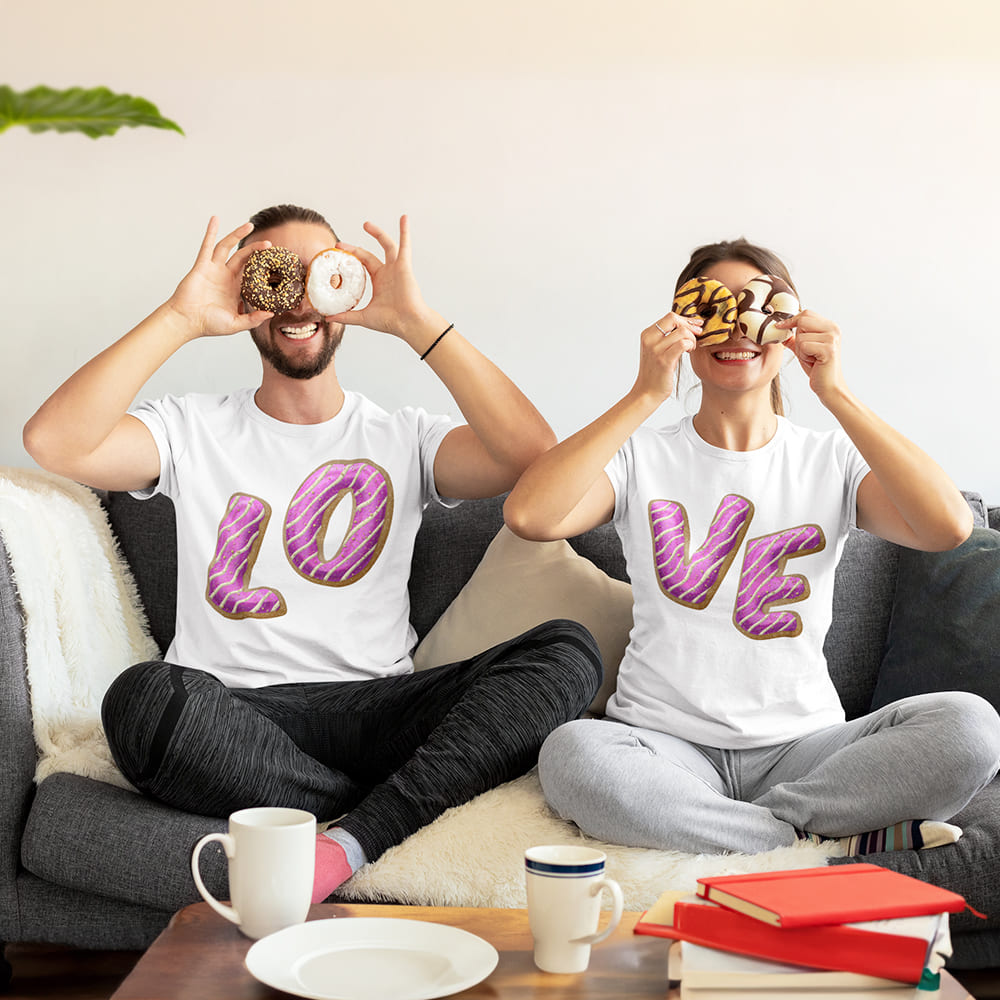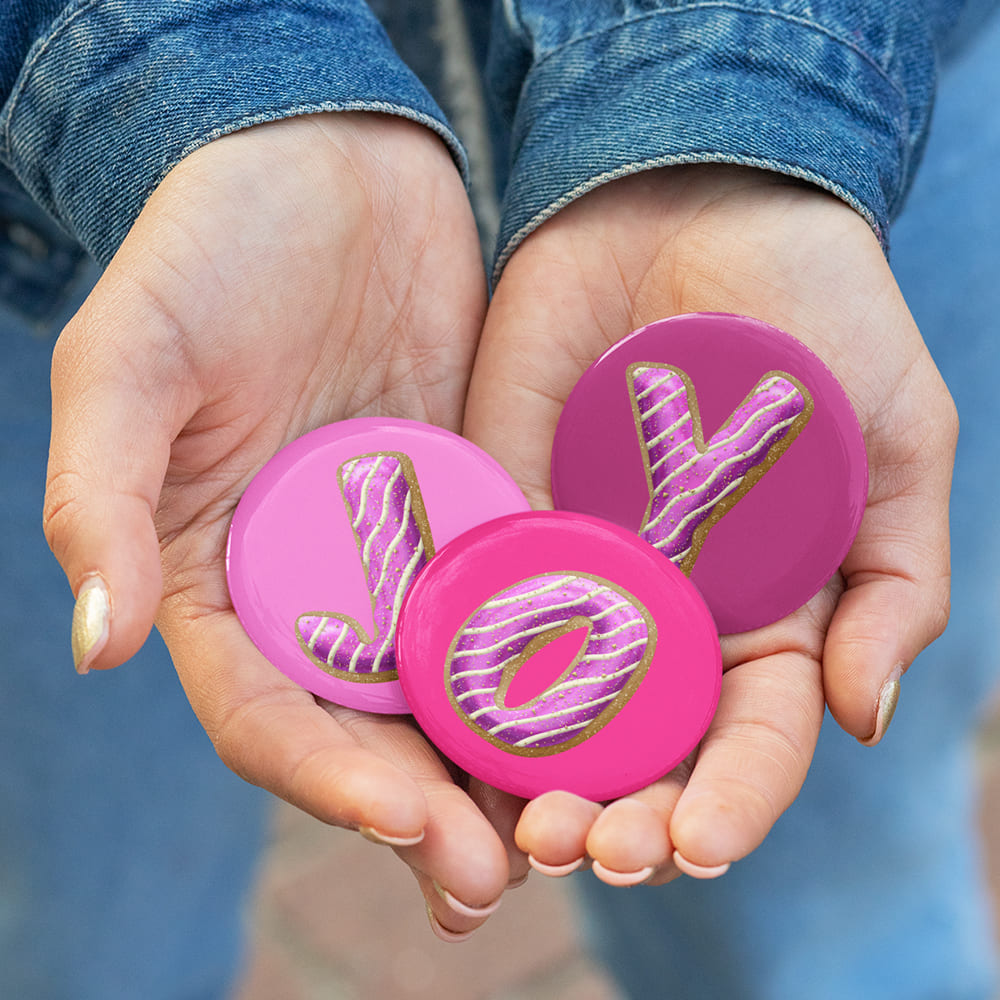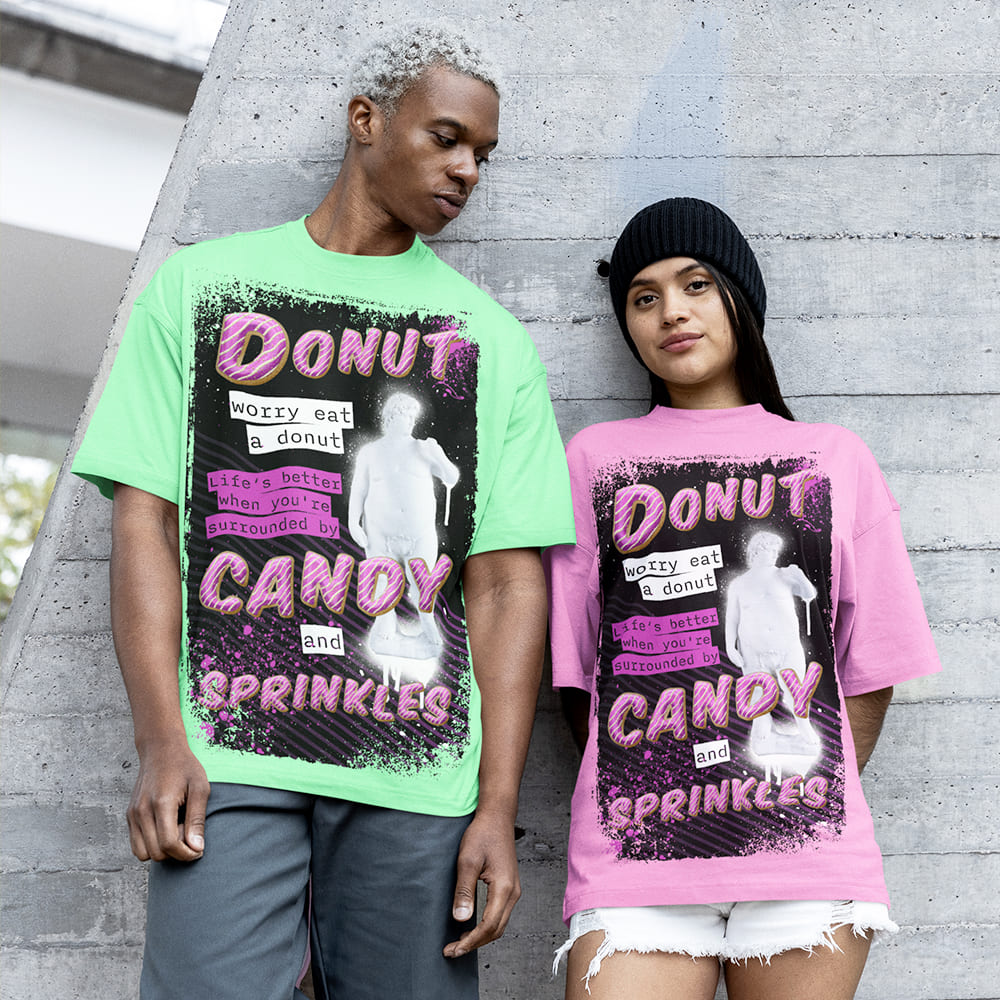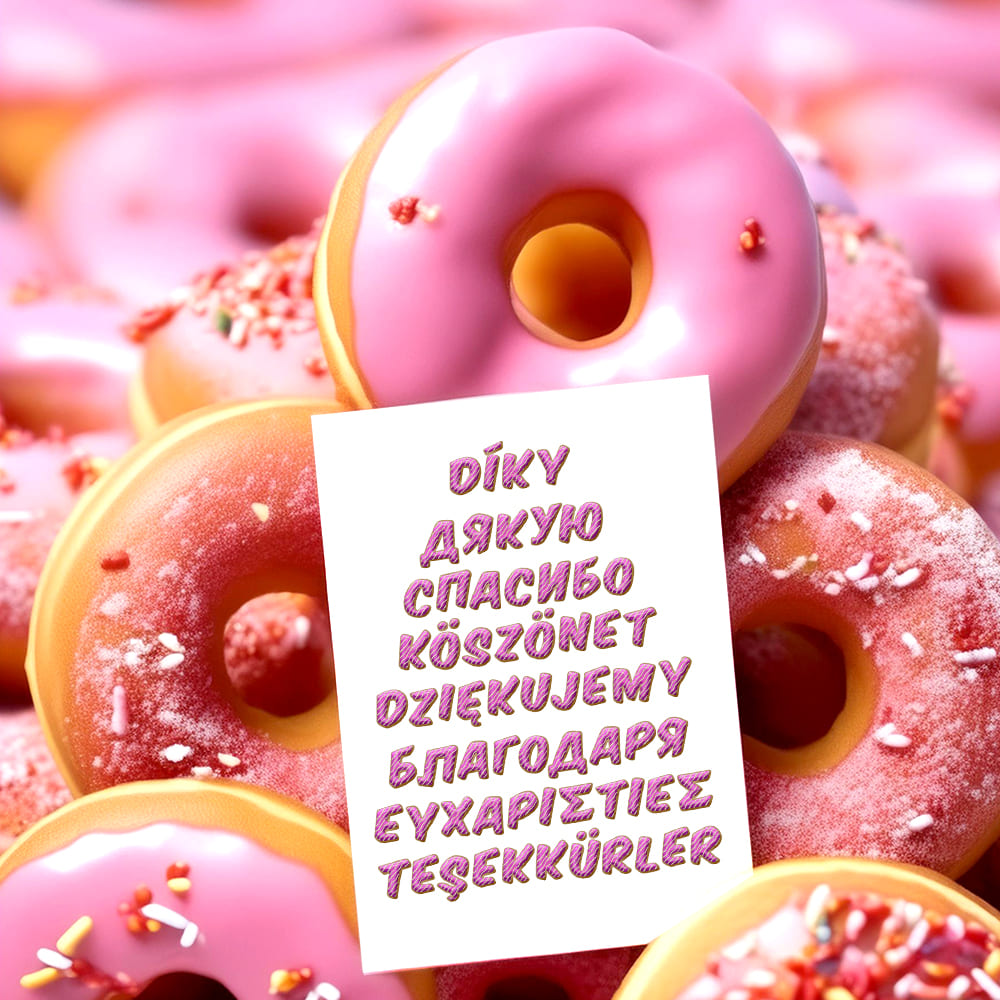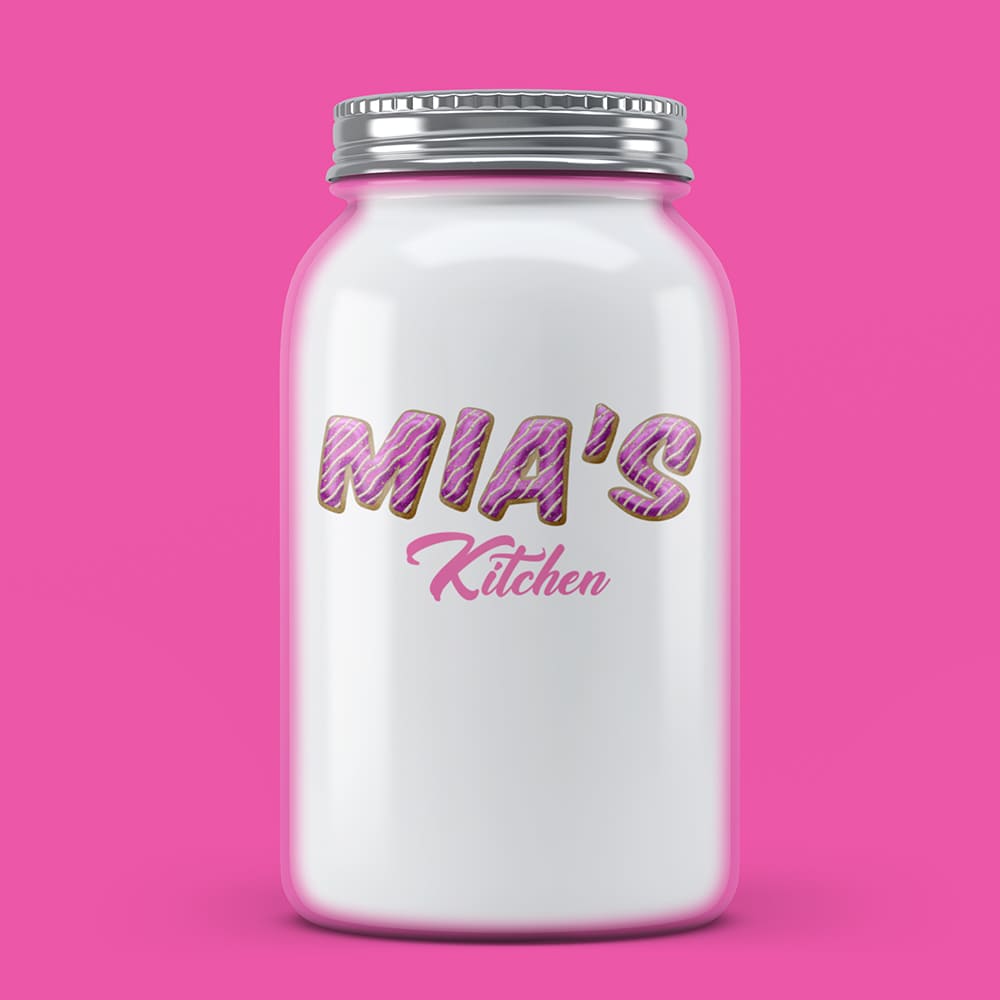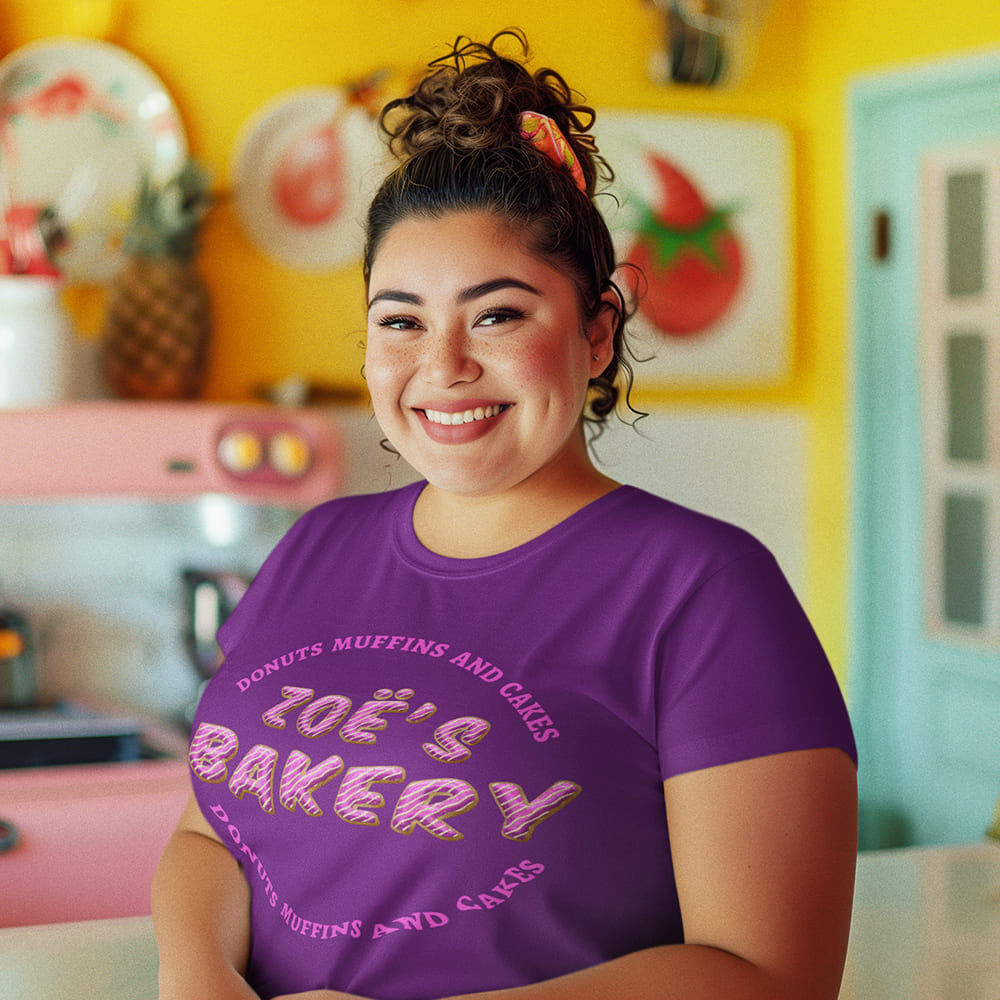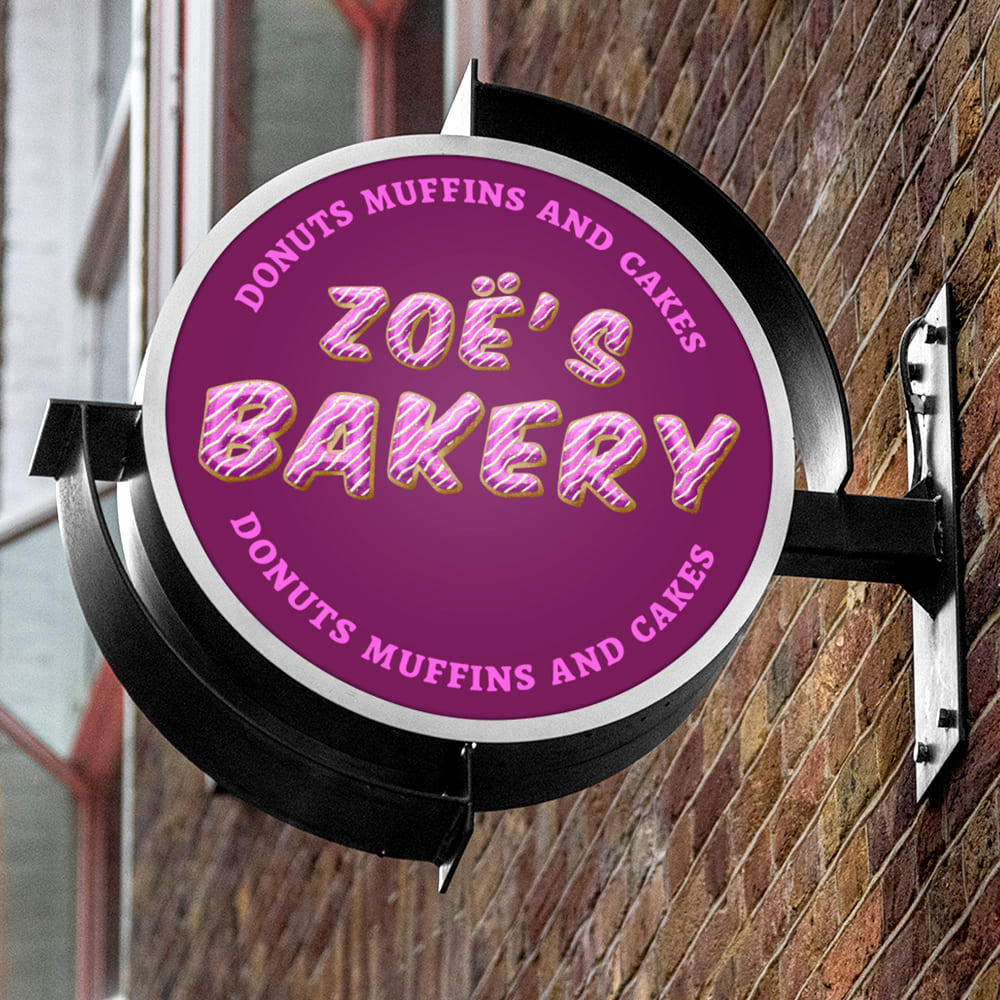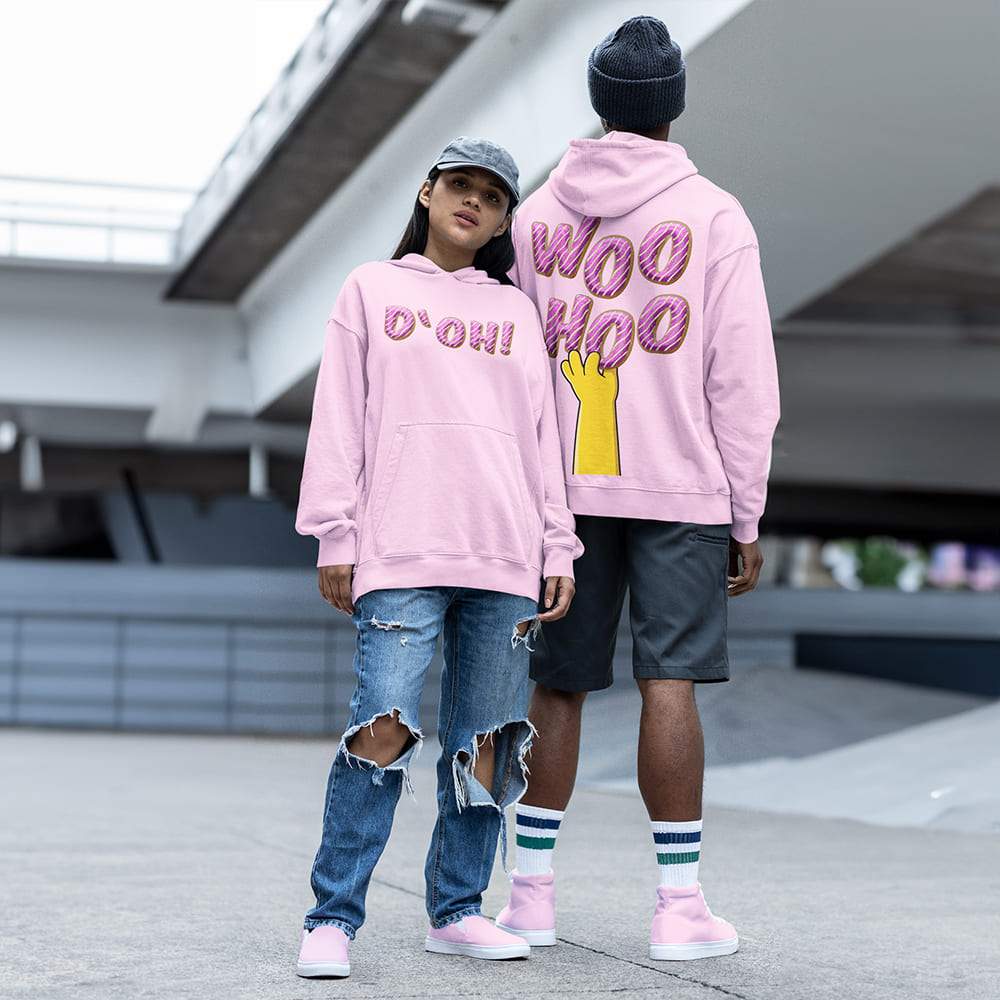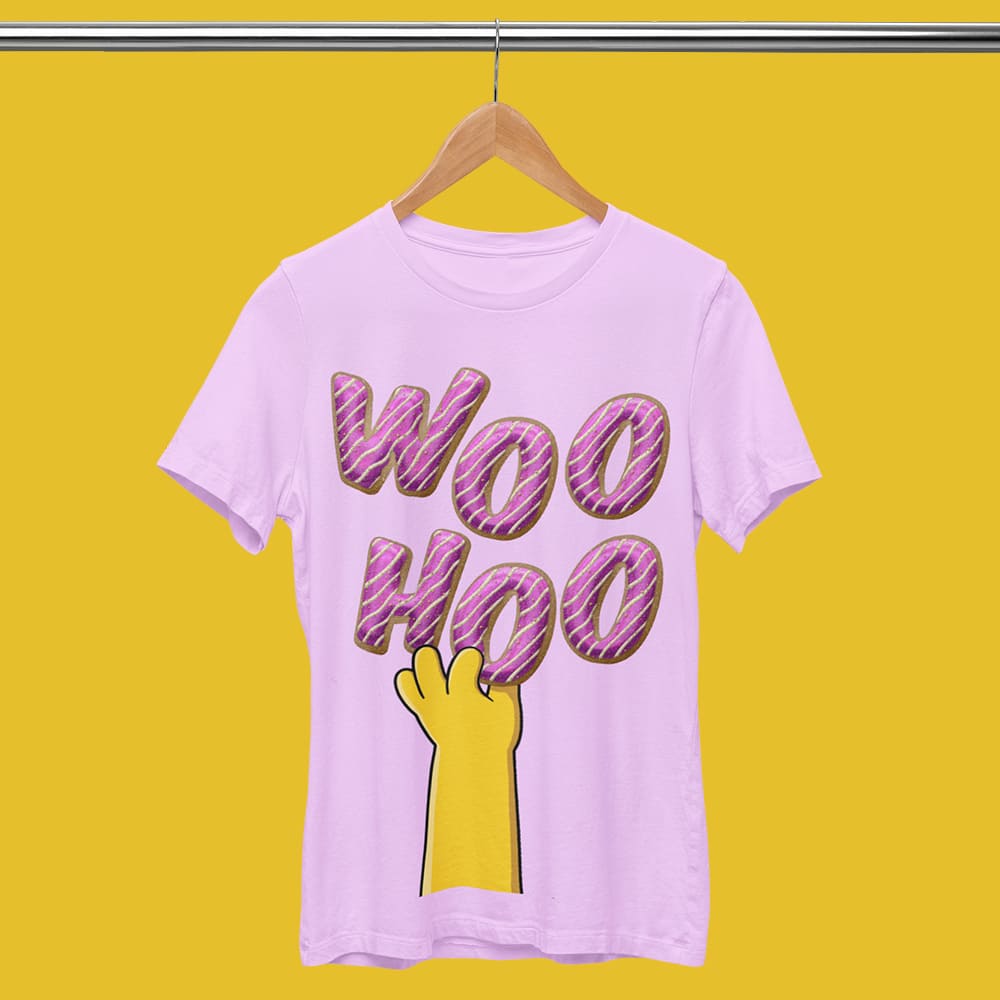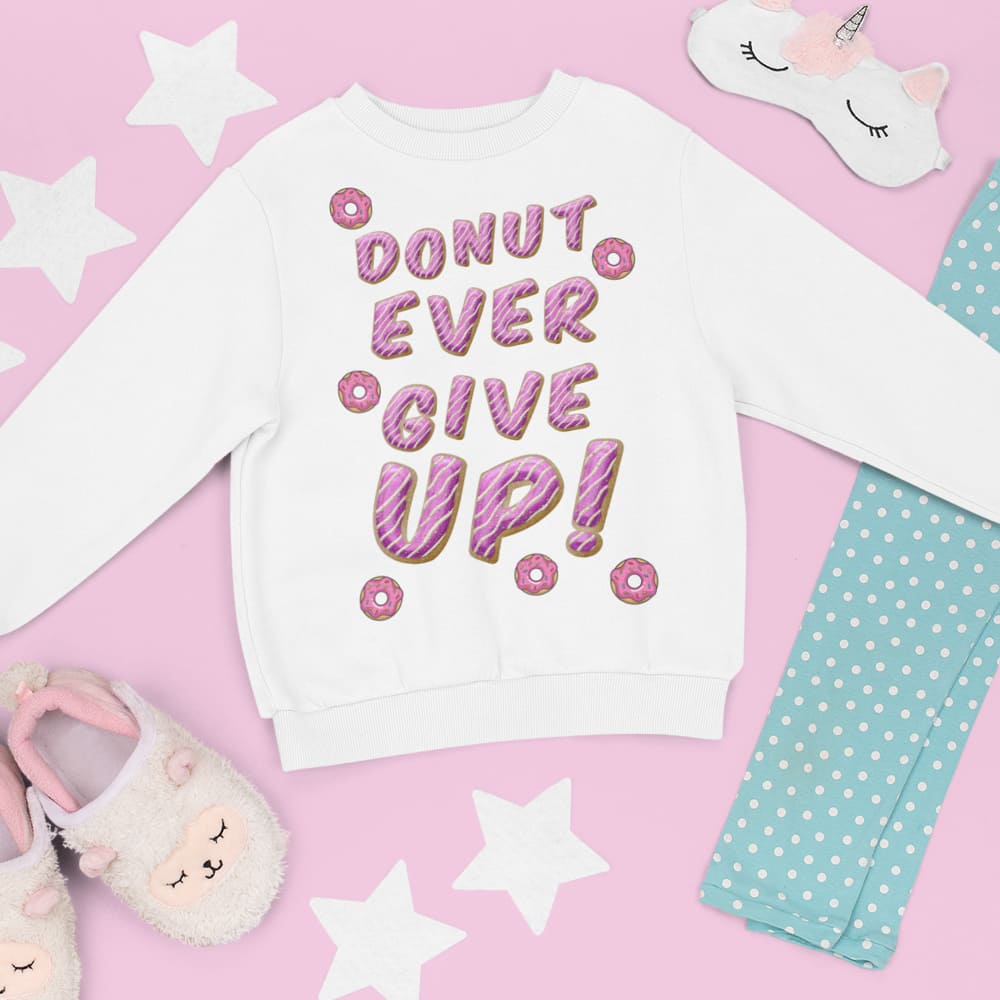
Pink Donuts Font
Sweet, Playful, Irresistible 🍩🎂🧁
Sometimes, your design just needs a delicious dose of sweetness and joy—like a freshly baked donut with pink frosting. The Pink Donuts Font brings that same playful, vibrant touch to your design, making every project instantly unforgettable.
Why Choose the Pink Donuts Font?
🔹 Playful & inviting – This font radiates happiness and lighthearted energy, perfect for designs that create a cheerful, welcoming atmosphere.
🔹 Irresistible look – With its bold, puffy letters and vivid pink color, the Pink Donuts Font grabs attention instantly. Ideal for events, bakeries, or fun, girly designs that need a bright and lively aesthetic.
🔹 Perfect for branding & promotions – Whether for social media, flyers, or posters, the Pink Donuts Font adds fun and color to any design.
🔥 EVERY FONT ROCKER FONT COMES WITH 325 GLYPHS & SUPPORTS OVER 100+ LANGUAGES WORLDWIDE, INCLUDING CYRILLIC, GREEK & MORE.
Make a Statement with Pink Donuts Font
Give your branding and designs a lively, inviting charm with the Pink Donuts Font. It’s the perfect choice for brands and projects that want to stand out with sweetness and fun.
🔹 Make your design unforgettable – let the playful sweetness of the Pink Donuts Font shine.
🔹 Choose sweet. Choose inviting. Choose Pink Donuts Font.